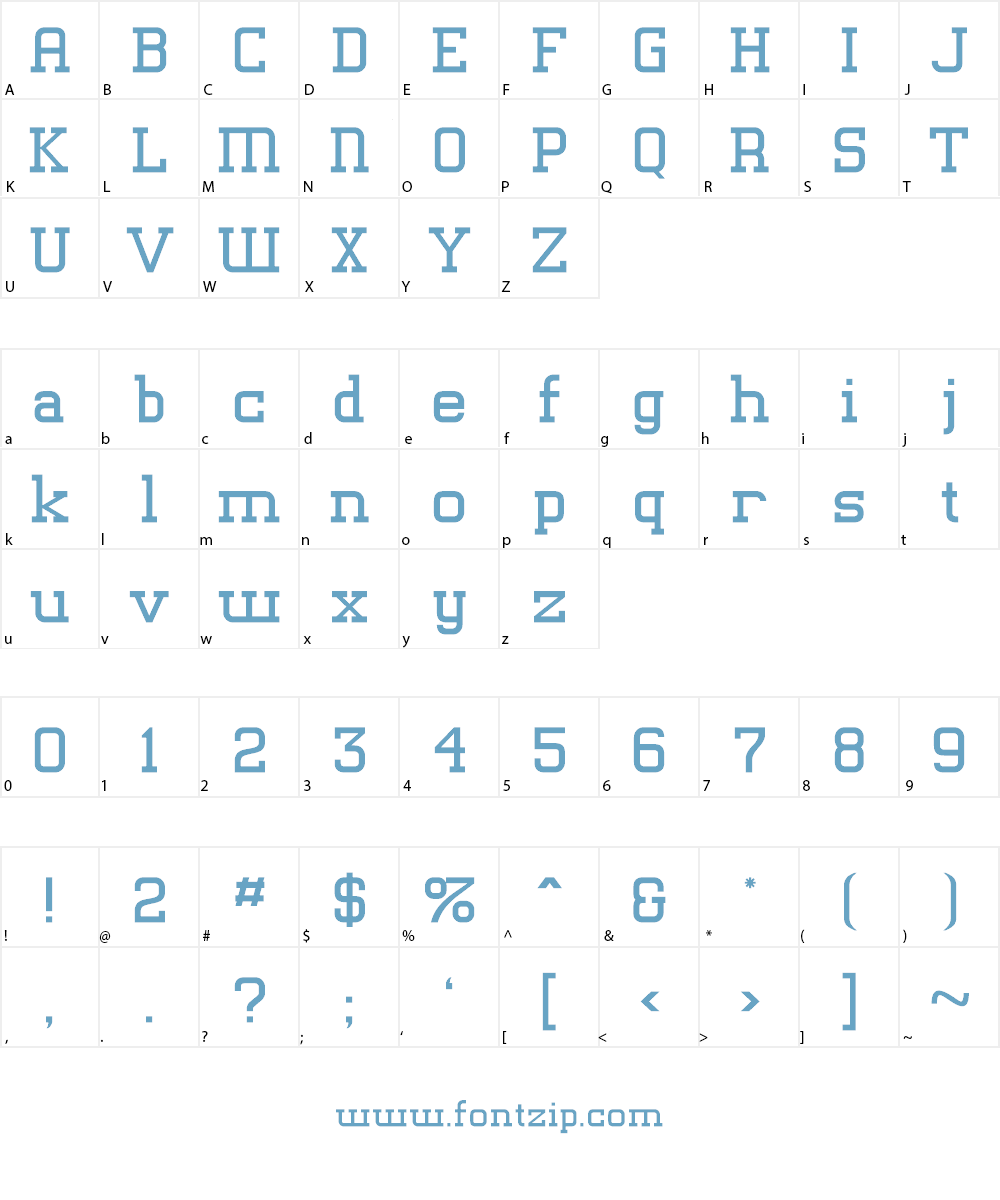
Agathens Chris Q is a newest slab-serif font created by me, which is a remake of Susan Kare's Athens. The glyph shapes were taken from the previously-released font, Autobabahn, an is relatively similar to the recently-released slab-serif font, Asakura Slab. The title combines Akyuu's alternative name, "Agatha Chris Q" and the name of the out-of-use city-named Macintosh font, Athens.